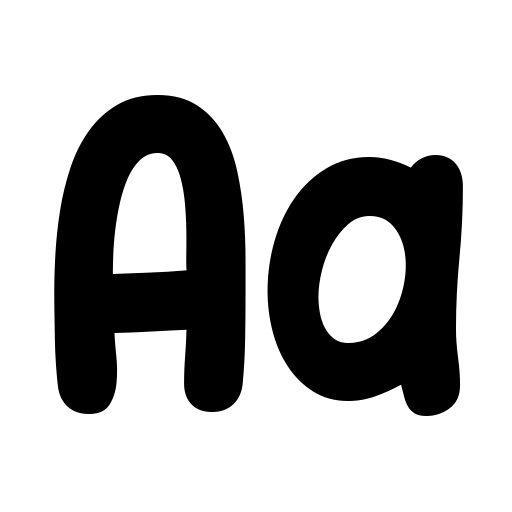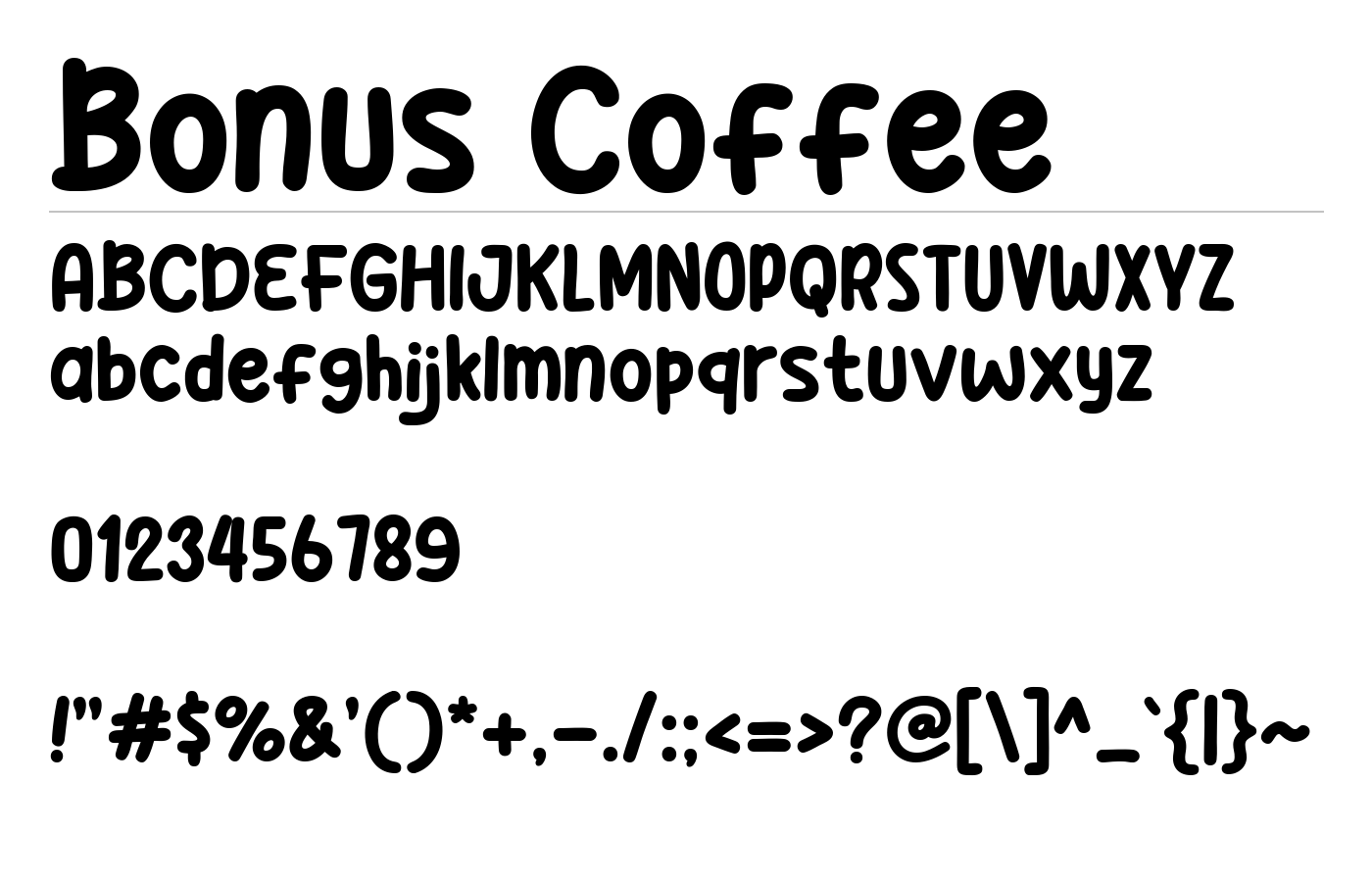
Bonus Coffee is a playful and rounded sans serif font with a friendly, informal vibe. Its bold weight and slightly condensed letterforms, paired with a high x-height and soft, smooth strokes, make it highly legible and inviting. This font works wonderfully for casual branding, children’s products, and fun packaging, adding an approachable and cheerful feel to any design.
Bonus Coffee Font
About Bonus Coffee Font